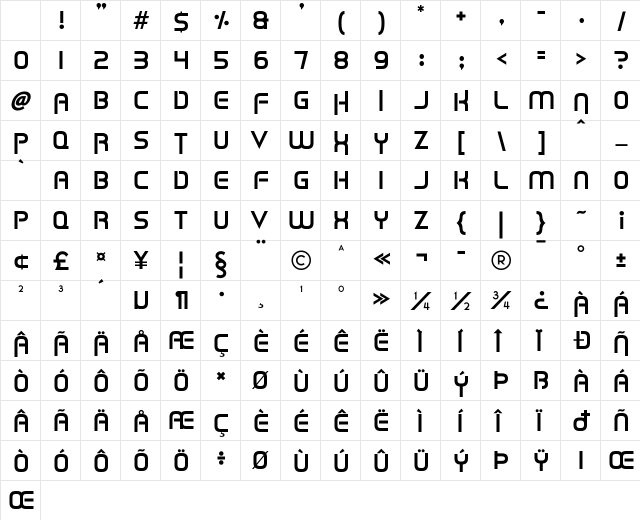
Complete ALIEN CYBERNETICS Regular glyph index. Displaying only characters natively supported by ALIEN CYBERNETICS Regular font.
ALIEN CYBERNETICS has a distinctly futuristic character, with geometric precision and clean angles that feel at home in technology, gaming, and sci-fi contexts.